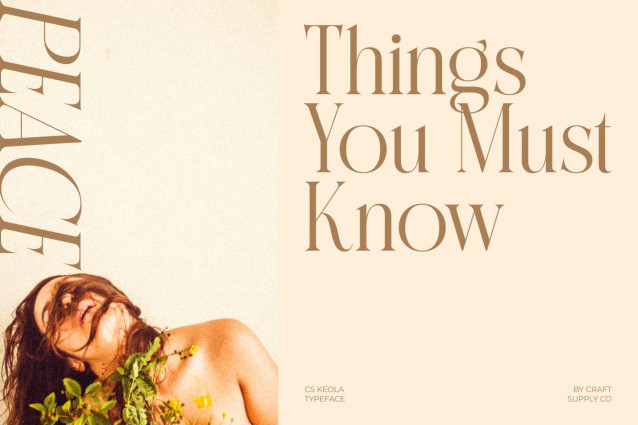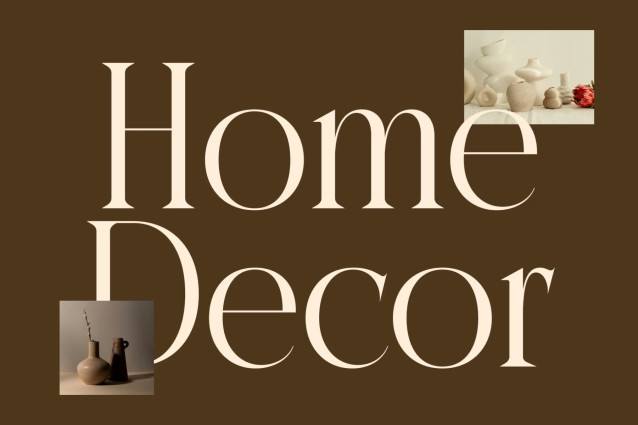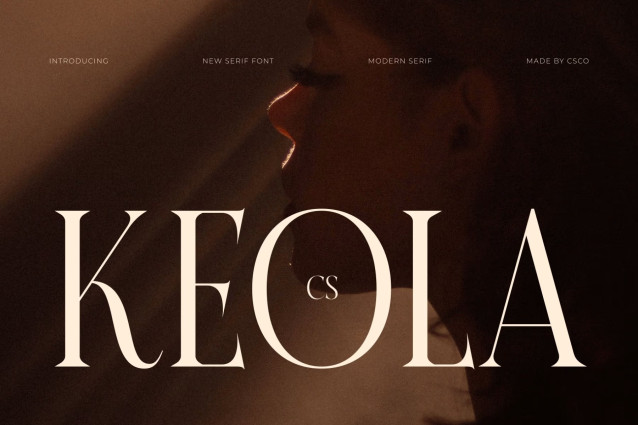
CS Keola – Modern Serif Font: Where Timeless Elegance Meets Contemporary Precision
High-Contrast Design with Refined Sophistication
This is a modern serif font that embodies timeless elegance through graceful long serifs, high-contrast strokes, and carefully measured proportions. Its refined structure creates a sophisticated visual rhythm, while the sharp serif details enhance its luxurious and polished character. The result is a typeface that feels both classic and unmistakably contemporary.
Clean Minimal Shapes for Modern Luxury
This font emphasizes clarity and balance without sacrificing visual richness. Its streamlined letterforms create a refined aesthetic that feels elegant, professional, and versatile. This minimalist approach allows the font to shine across both large display settings and refined editorial compositions.